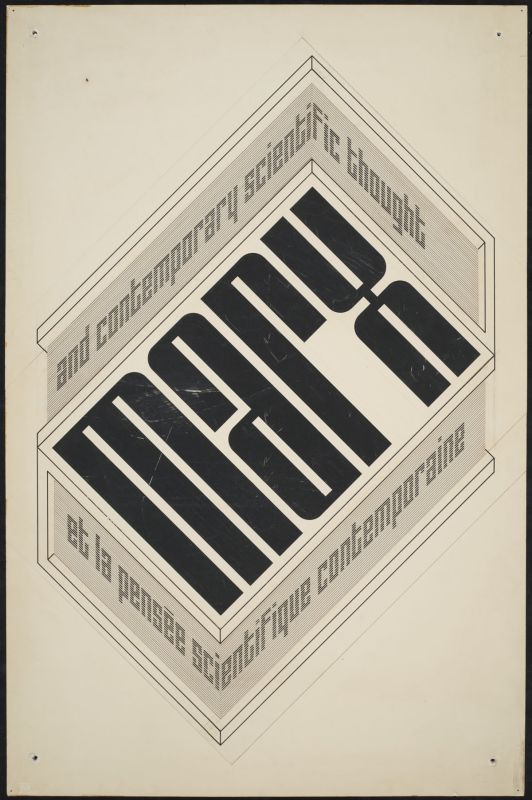
• JS-SANS MARX (CONDENSED BOLD) — Geometric Sans-Serif
Another font addition to the ever evolving and growing collection of revivals and inspired works called LETTERS OP MAAT, a project celebrating and trying to recreate the typographic contributions originally designed by Dutch graphic designer Jurriaan Schrofer.
This time I did a revival  based on a sans-serif lettering concept Schrofer did in 1968 during his time with Mouton & Co. The lettering concept was seen on his book cover design for the book "Marx and contemporary scientific thoughts; Marx et la pensée scientifique contemporaine". The book cover only shows 4 lowercase letters, spelling the word "marx". But these pretty much have all the important features to extrapolate the remainder of the alphabet from. At the same time having just 4 letters allows for a much more loosely approach towards inventing the other letter solutions.
I decided to create a typeface family of multiple styles each with different weight properties (Light, Medium & Bold in both Compressed and Condensed form). The medium weight is what was actually seen on the original book cover.
The original artwork as was designed by "Jurriaan Schrofer".